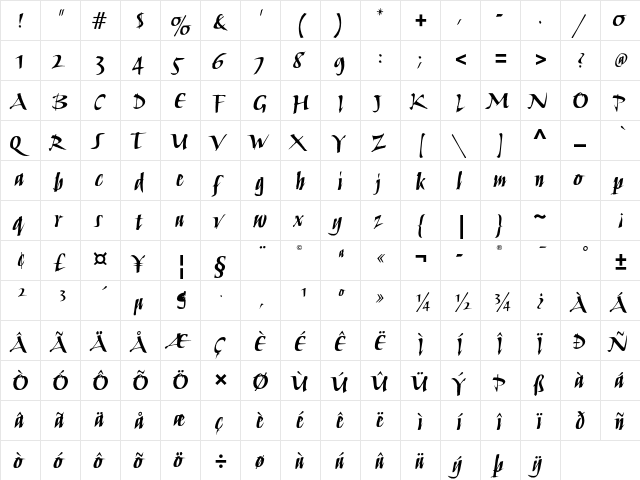
Humana Script ITC Std Bold
| Designer | Timothy Donaldson |
Design Context for Humana Script ITC Std Typeface
Humana Script ITC Std brings a calligraphic fluidity to the page — its connecting strokes and expressive curves give it an unmistakably human quality. Its bold stroke weight gives it real presence on the page.
Font Pairing: Combine Humana Script ITC Std with a simple geometric sans for maximum contrast — the tension between flowing curves and clean structure is a classic typographic pairing.
Pro Tip: Use Humana Script ITC Std for short runs of text — names, titles, or taglines. Extended body copy in script faces tires the eye quickly.